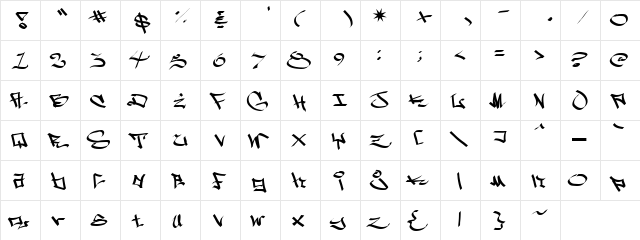
Student Project Regular
Design Context for Student Project Typeface
Student Project is a composed and adaptable typeface that performs quietly and consistently across a wide range of design contexts.